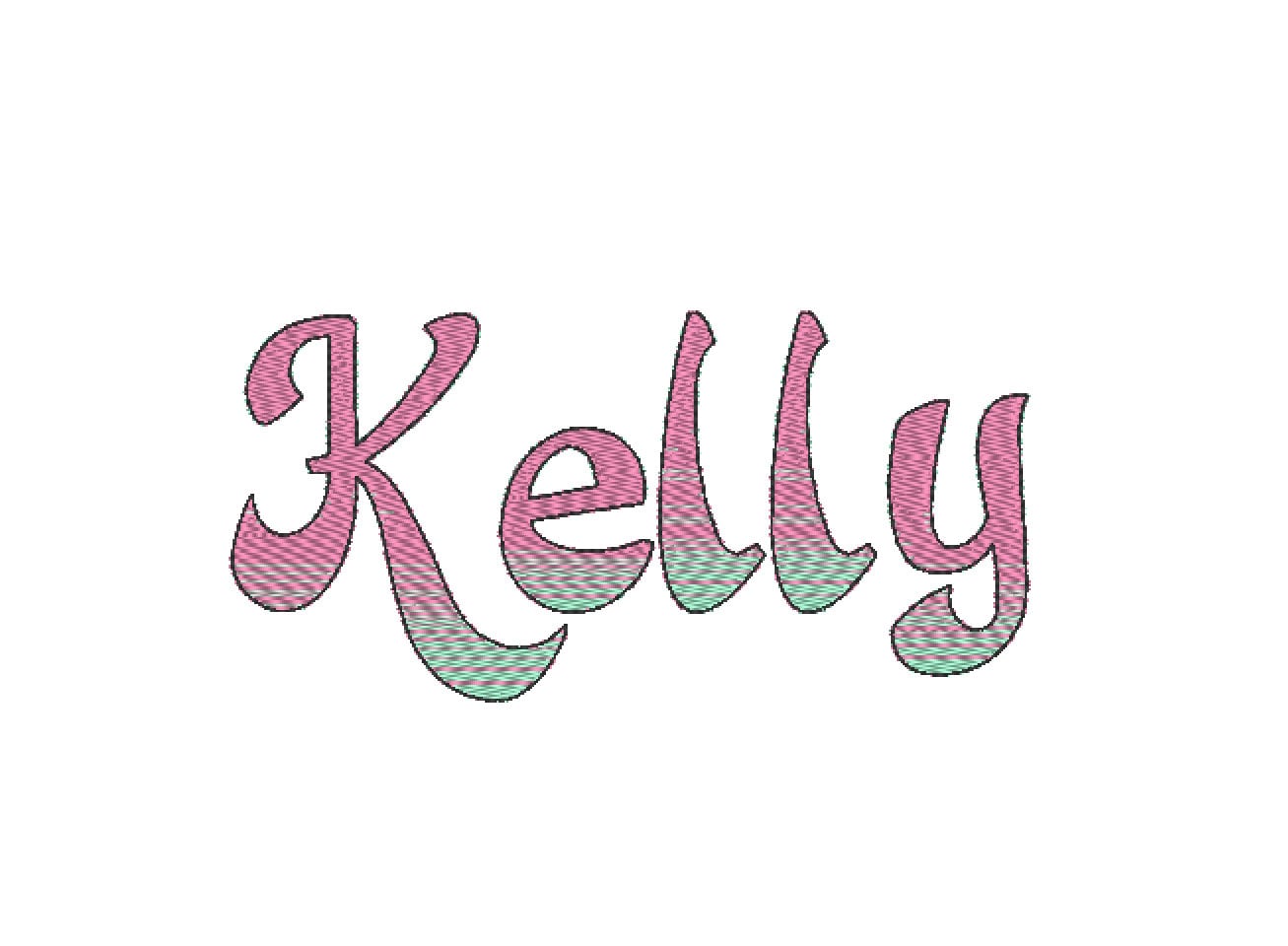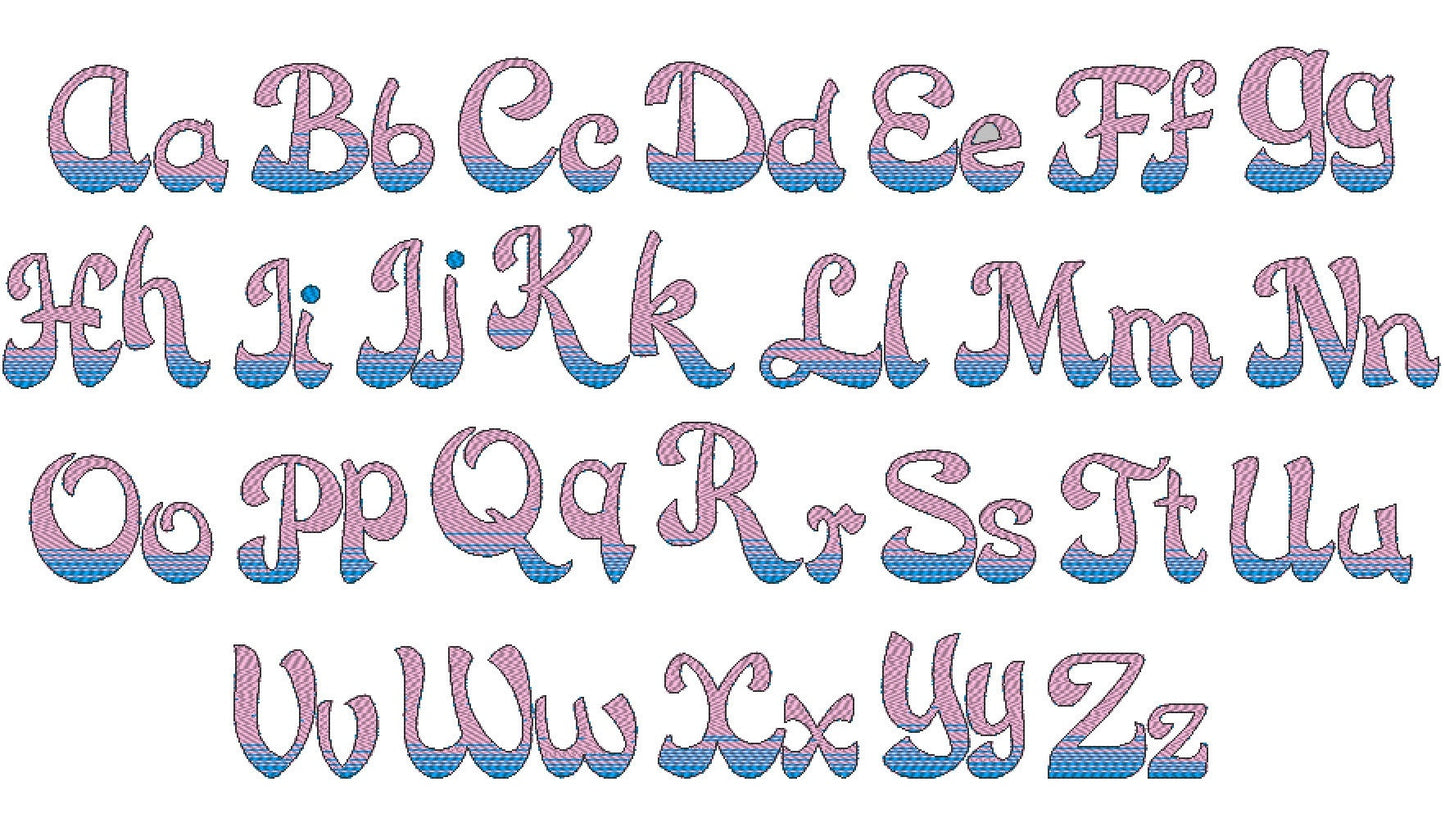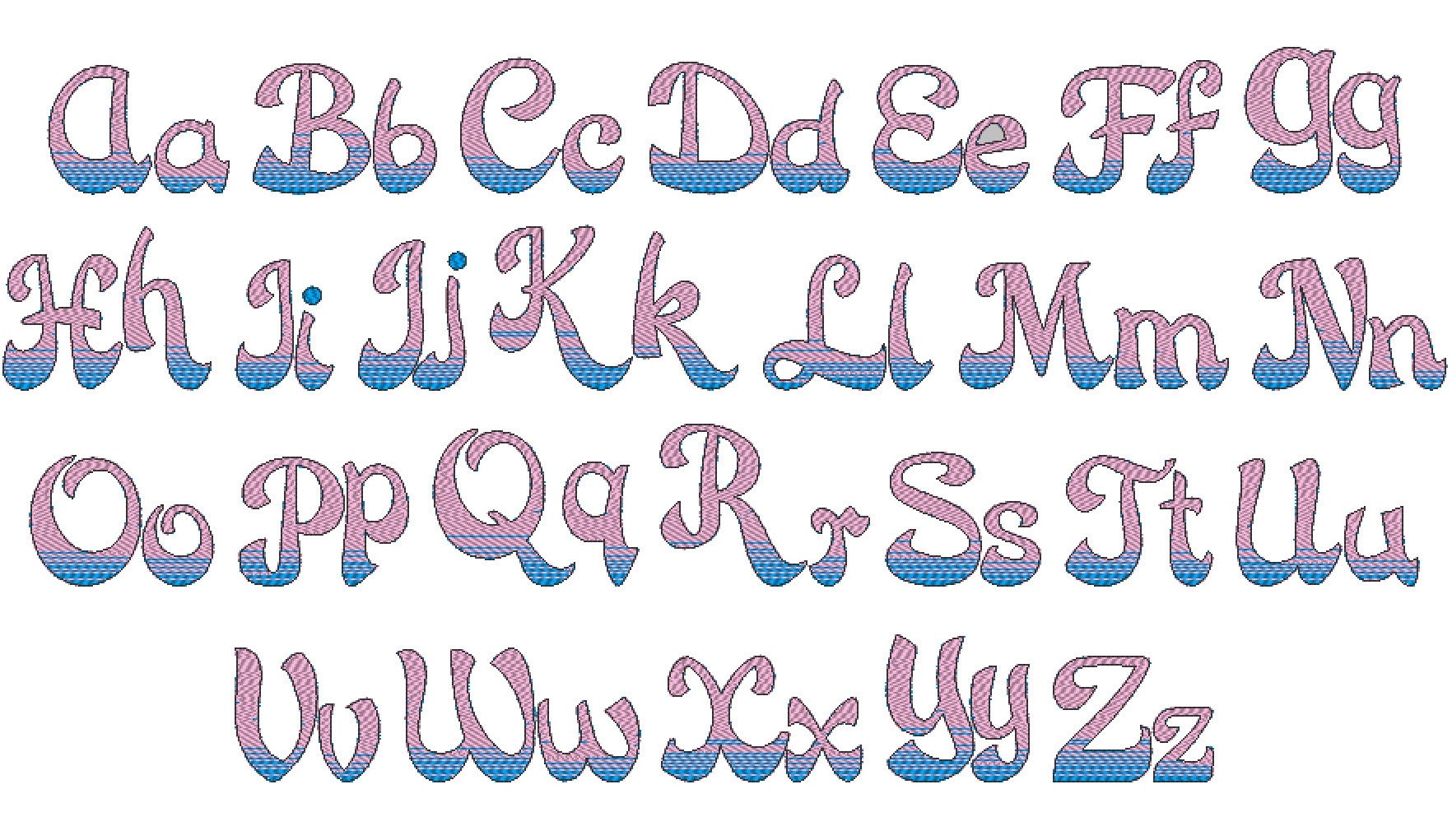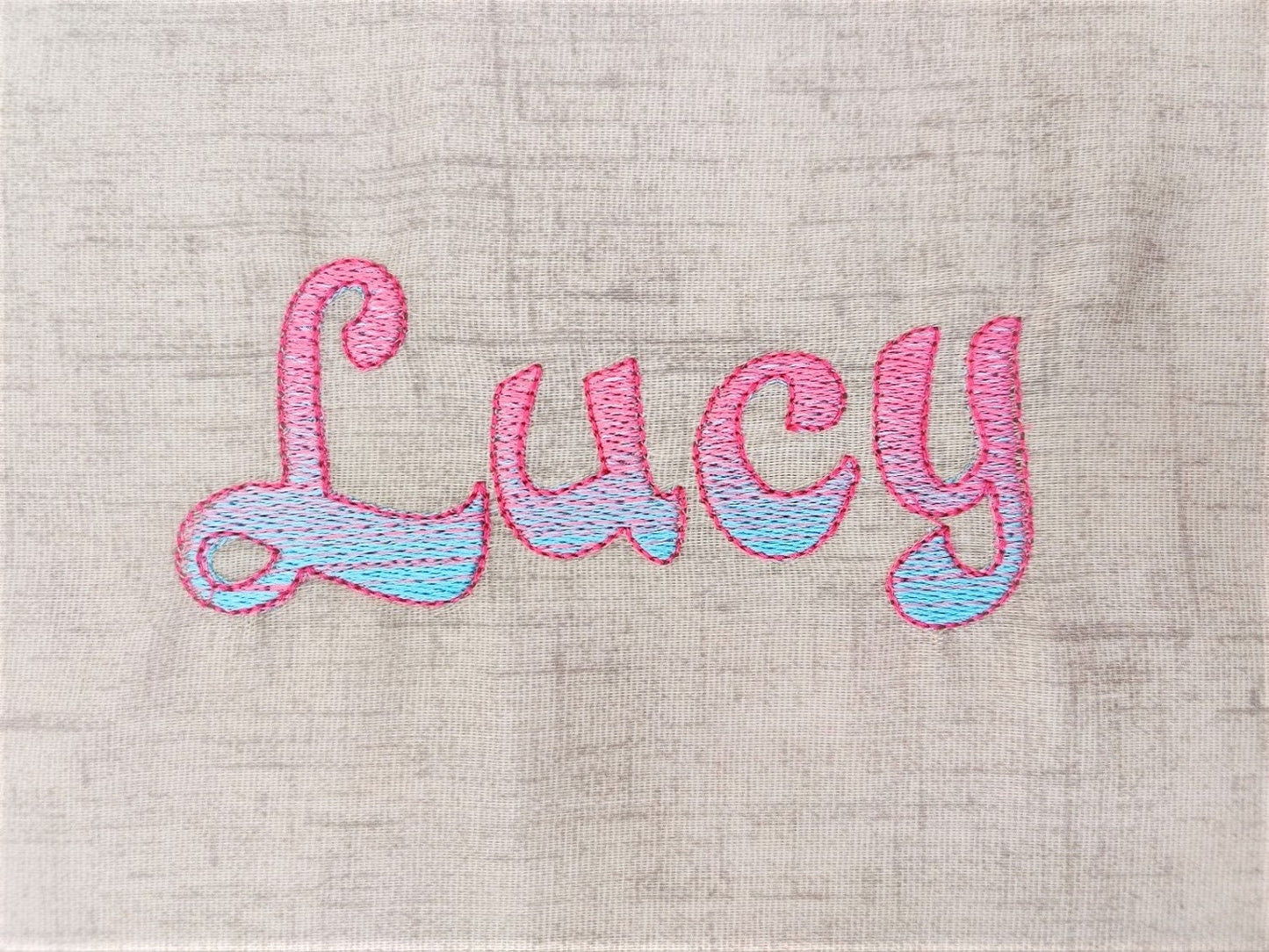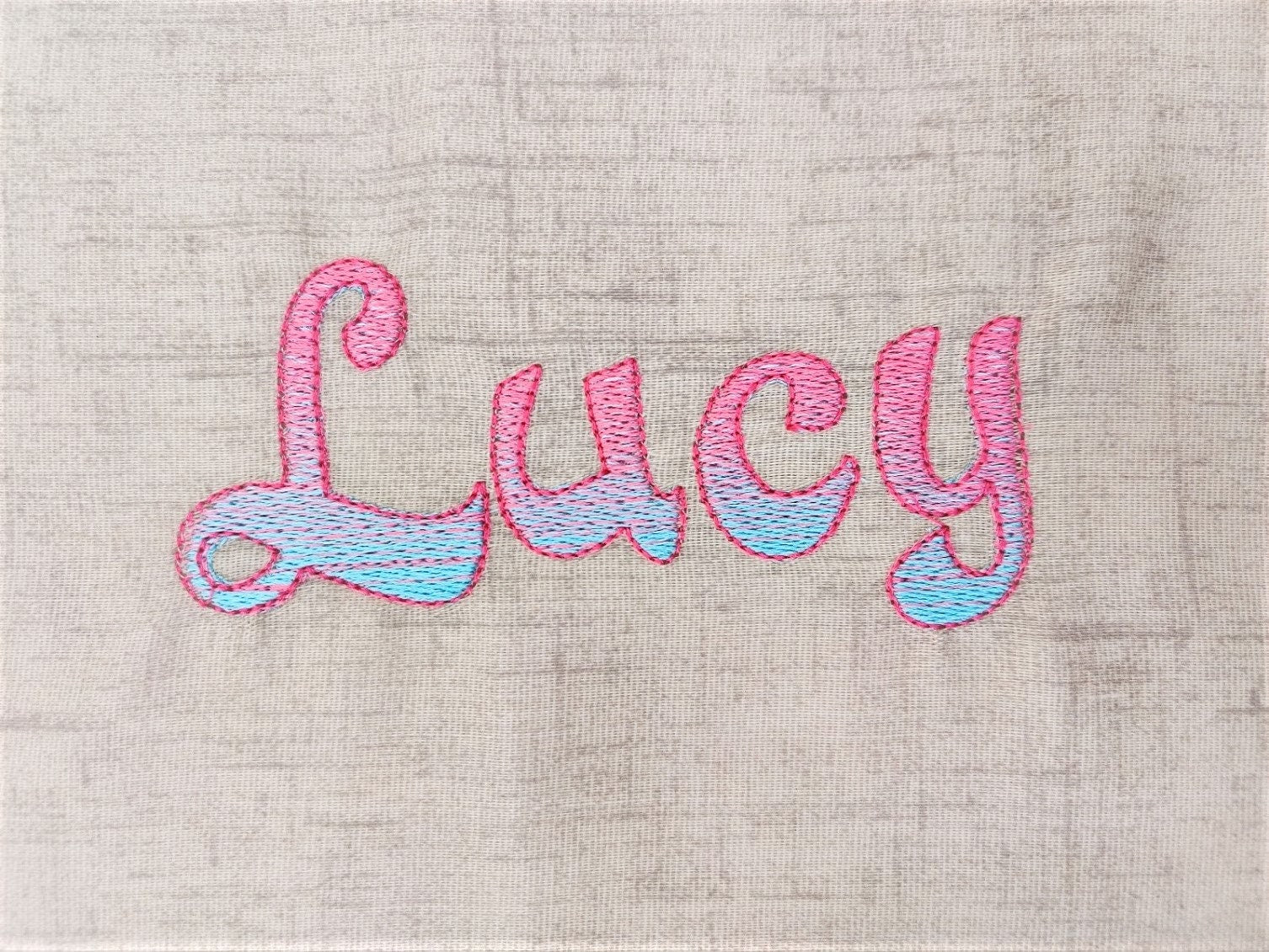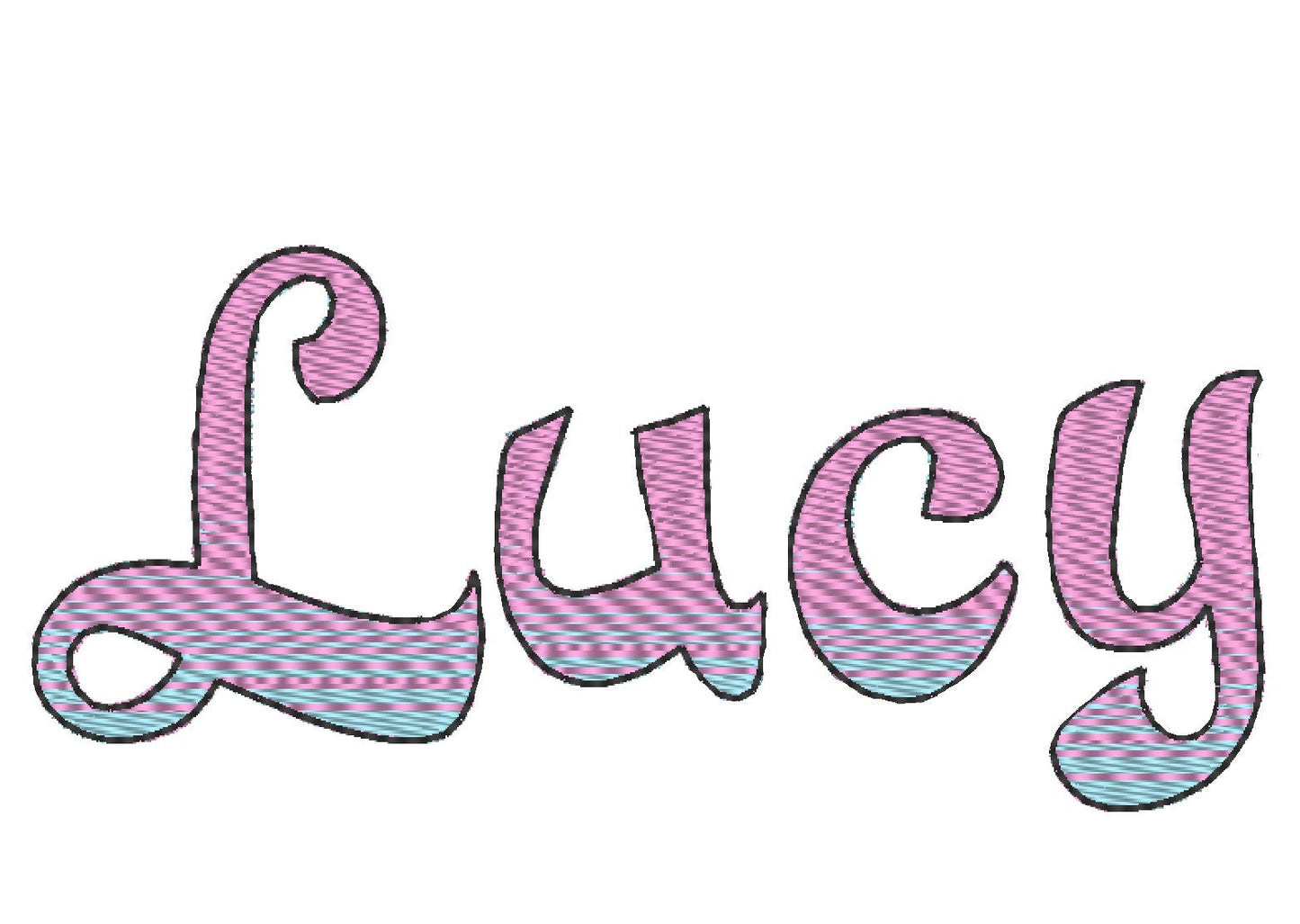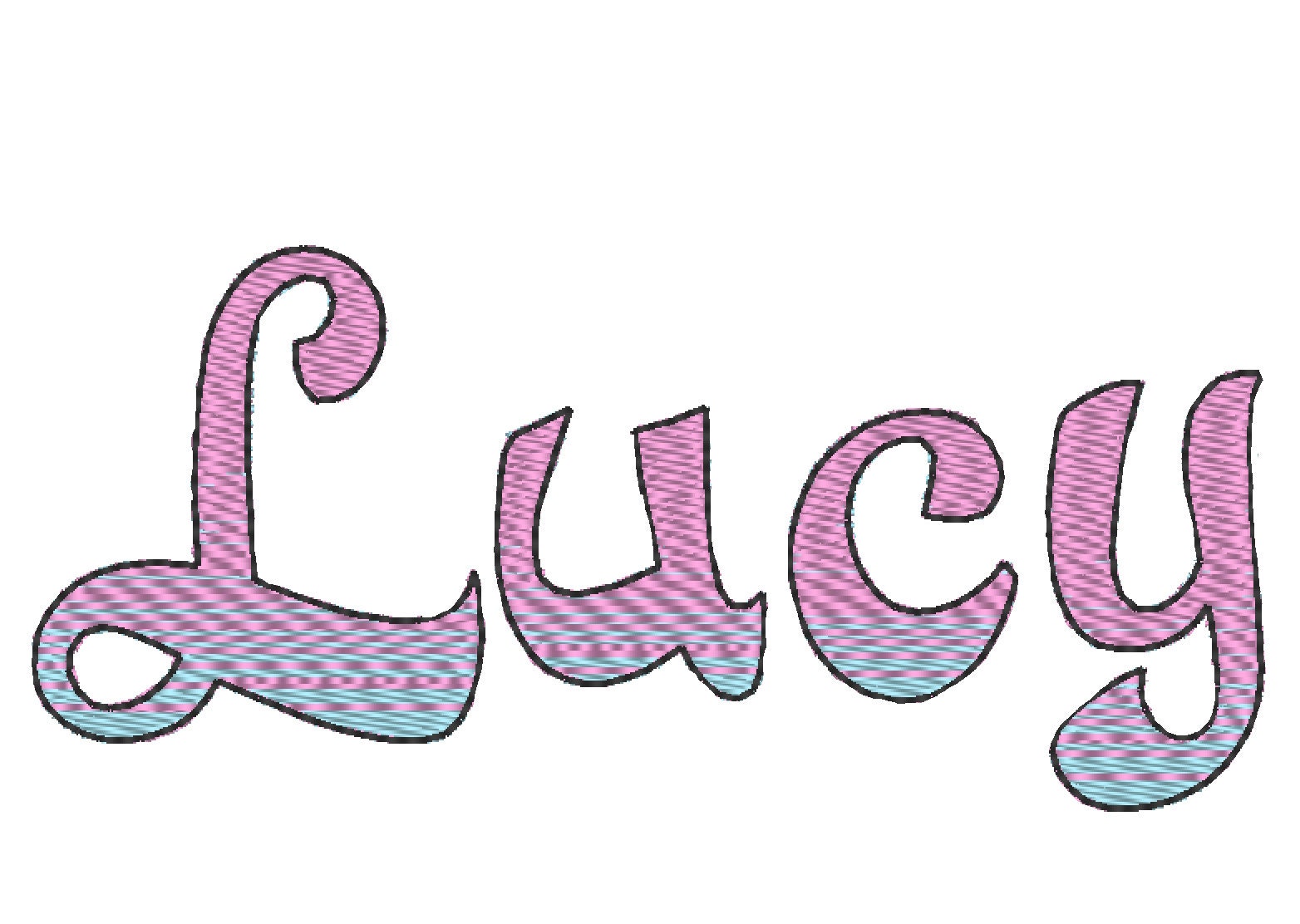
Or click to open the linkAn iridescent block font stitched with two ordinary thread colors that blend into a rainbow gradient. No special thread needed.
Uppercase and lowercase letters in six sizes: 1.1, 1.3, 1.7, 2.1, 2.5 and 3 inches. One side of each letter is stitched mostly in one color and the other side in the second, so it shimmers all by itself.